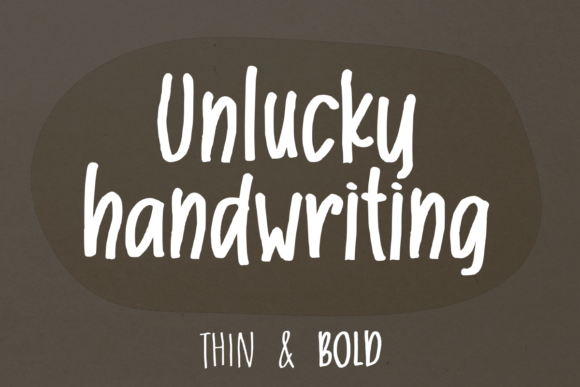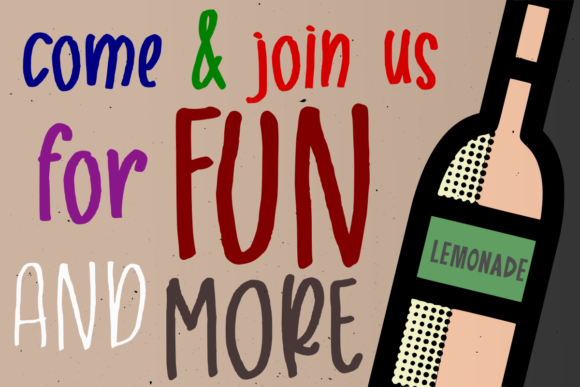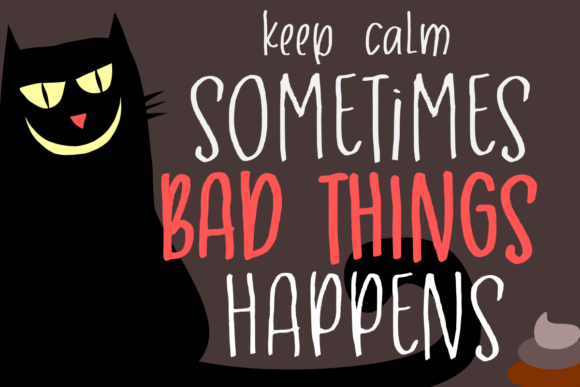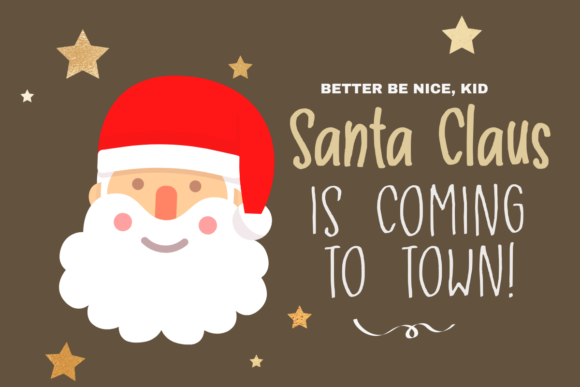
Unlucky Font
About Unlucky Font
Unlucky is a sweet and quirky handwritten font. Whether you’re looking for fonts for Instagram or calligraphy scripts for DIY projects, this font will turn any creative idea into a true piece of art!